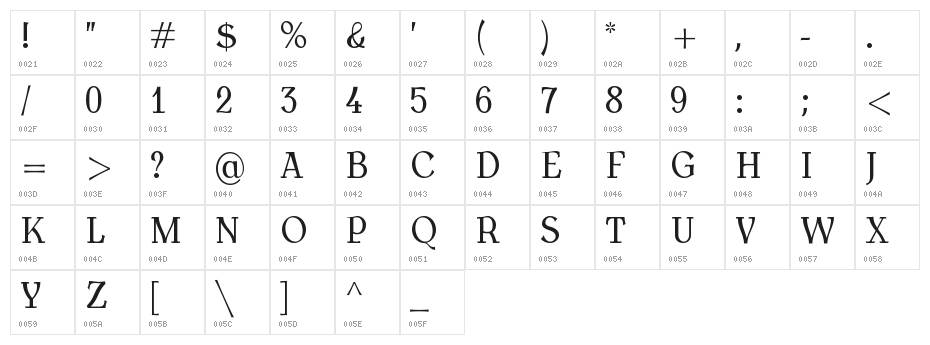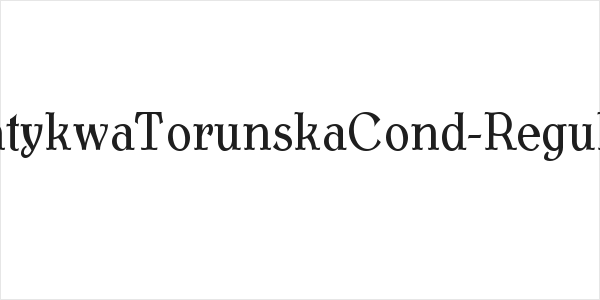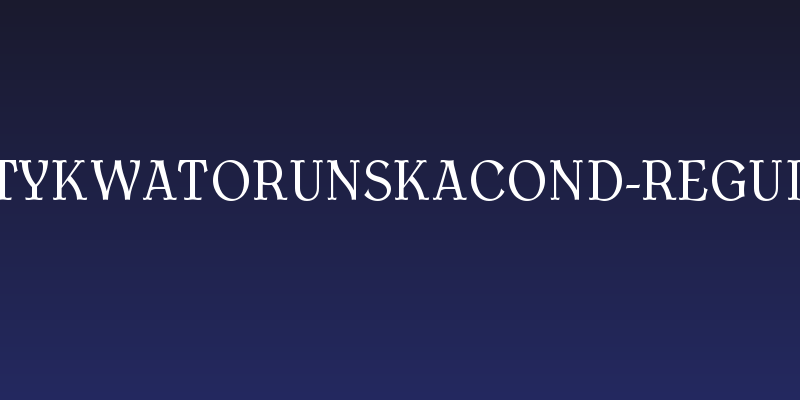
AntykwaTorunskaCond-Regular Font
AntykwaTorunskaCond-Regular Description
This font features a classic serif design with a touch of elegance and sophistication. The characters exhibit a traditional serif structure, with slightly flared ends that enhance readability and add a timeless appeal. The uppercase letters are bold and commanding, while the lowercase letters maintain a balanced and harmonious appearance. The numerals are clear and distinct, making them suitable for both text and display purposes. Special characters are well-integrated, maintaining the overall aesthetic of the font. The design is versatile, suitable for a variety of applications, from editorial to branding.